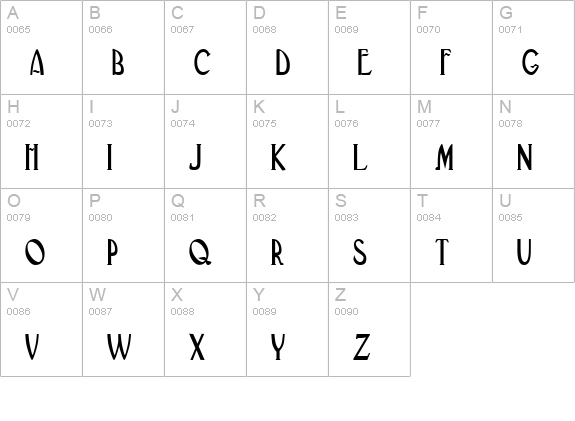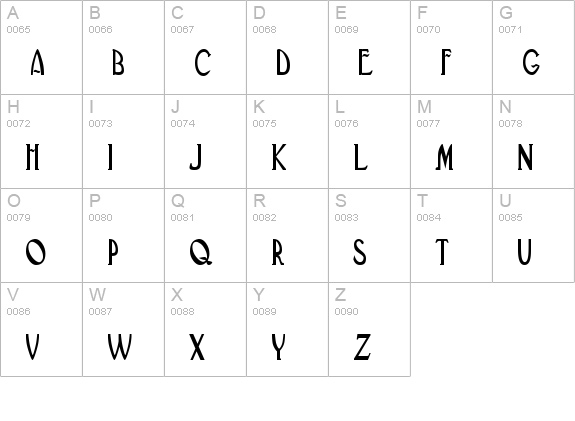
Deco-Condensed Bold is a strong, high-contrast, condensed-width variant in the Deco typeface family \xE2\x80\x94 well suited to headlines, attention-grabbing titles, and strong calls-to-action.
The Deco-Condensed Bold font is a modern and stylish typeface that exudes confidence and sophistication. Its bold and condensed design makes it perfect for headlines, titles, and branding projects that require a strong visual impact. The sleek lines and sharp angles of this font give it a contemporary and edgy look that will make your designs stand out. What's even better is that the Deco-Condensed Bold font is available for free download at FontsMarket.com. You can easily access this versatile and eye-catching font to enhance your creative projects without any cost. Whether you're working on a poster, logo, website, or any other design project, the Deco-Condensed Bold font will add a touch of modern elegance and flair. Download it now and elevate your designs with this stunning typeface.